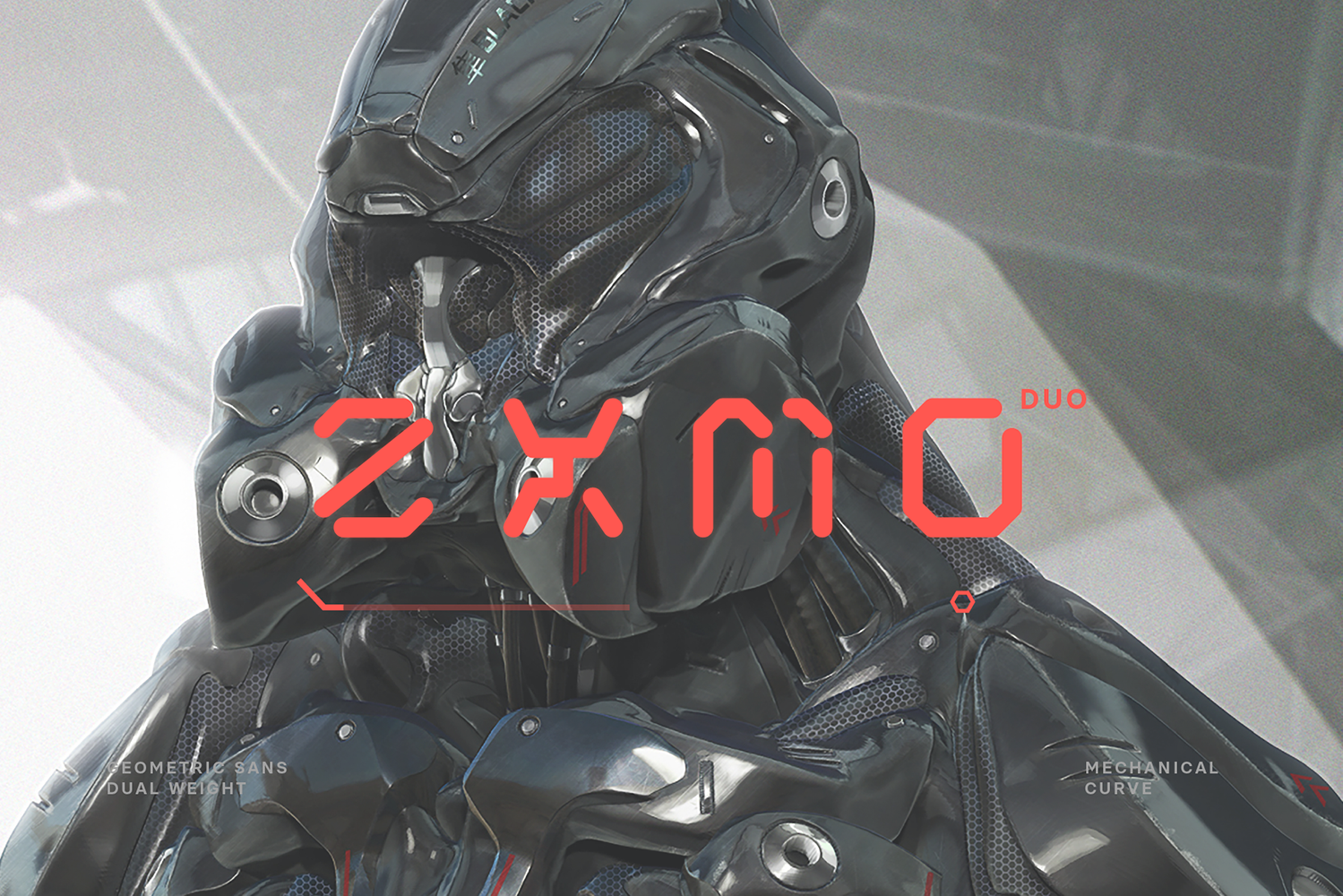
ZXMO Futuristic Tech Font
Zxmo is an aggressive tactical mono linear display font apt for conceptual prototype, cyberpunk theme poster, album cover, hud typography and user interface applications.
- Dual weights
- All caps with alternative
- Numbers and punctuations
- Toggle caps lock for alternative glyphs